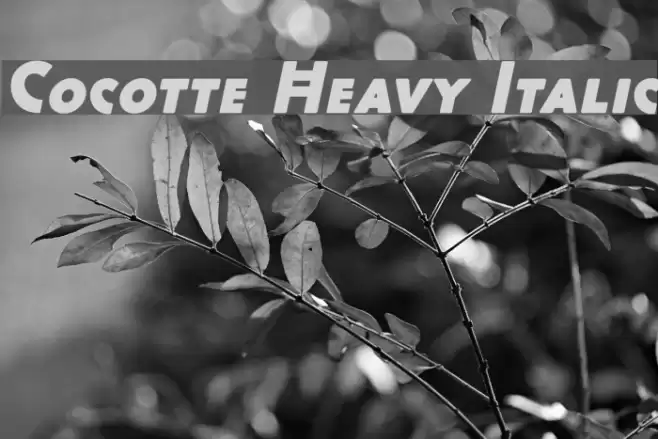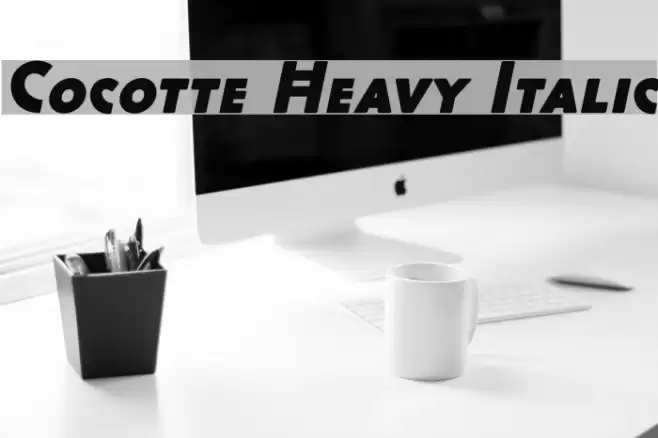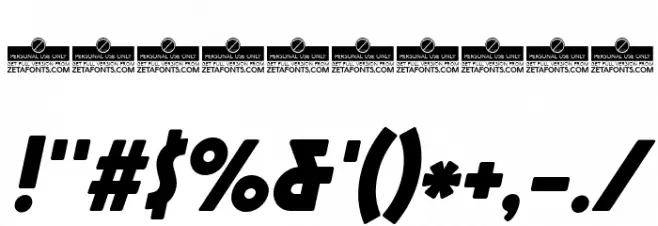
Cocotte Heavy Italic Font
Cocotte Heavy Italic Description
This font features a bold and dynamic style with a strong italic slant, giving it a sense of motion and energy. The characters are thick and heavy, providing a robust presence on the page. The uppercase and lowercase letters maintain a consistent weight, enhancing readability while adding a touch of modern flair. The numerals and special characters are designed to match the boldness of the alphabet, ensuring uniformity across all text elements. This font's unique style makes it suitable for eye-catching headlines and impactful designs.
A bold, italic font with a dynamic and modern style from Uncategorized fonts.